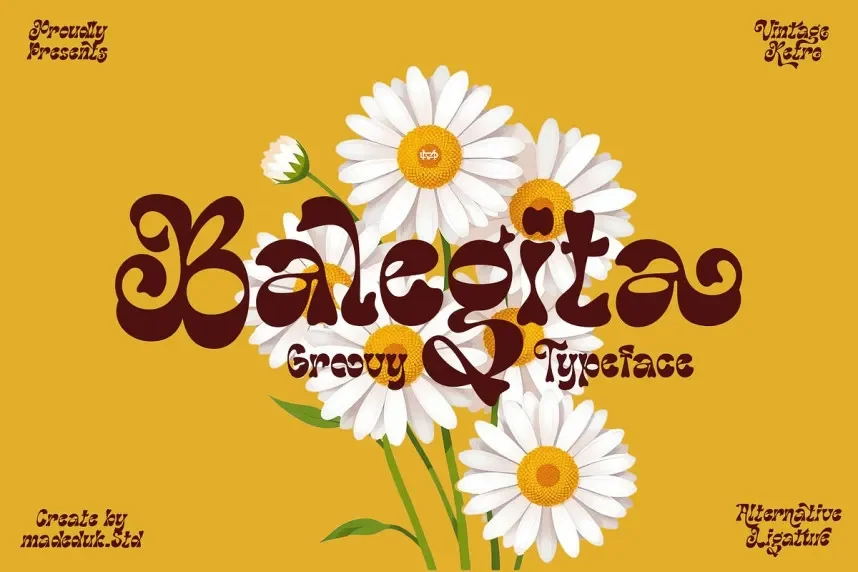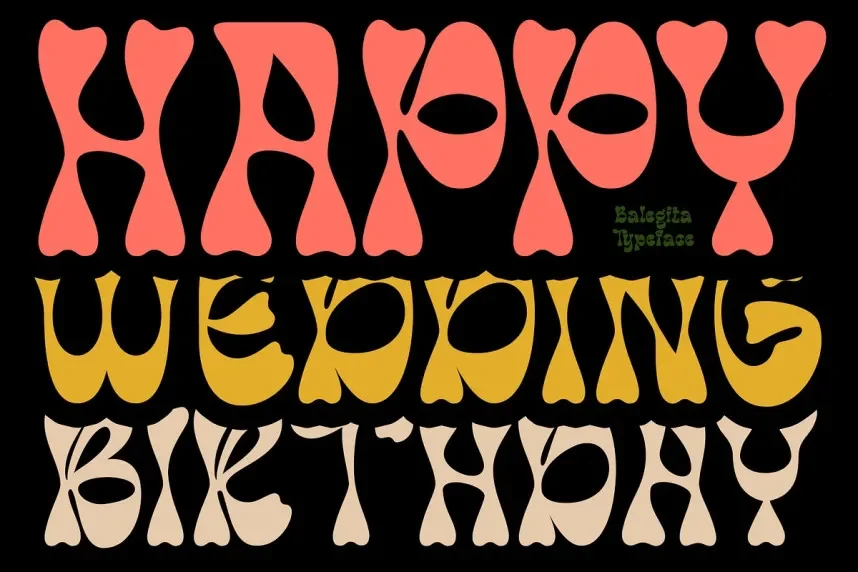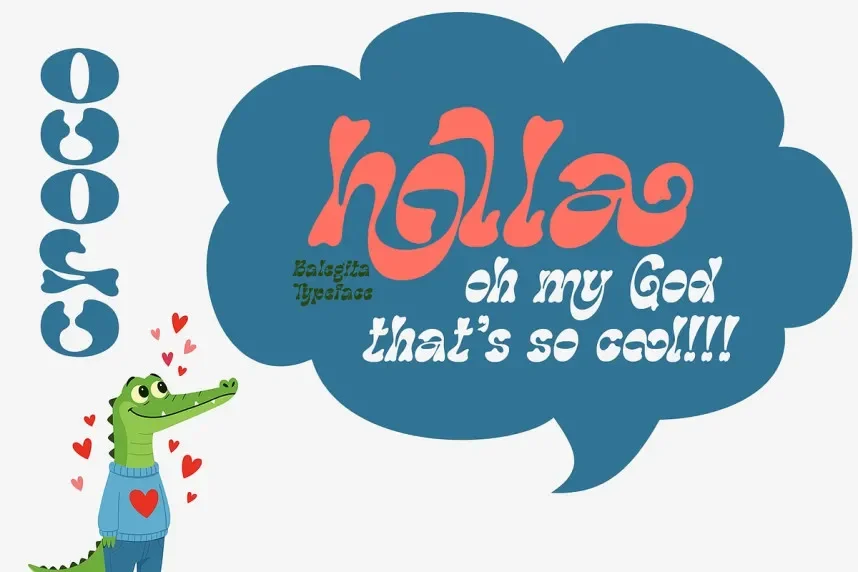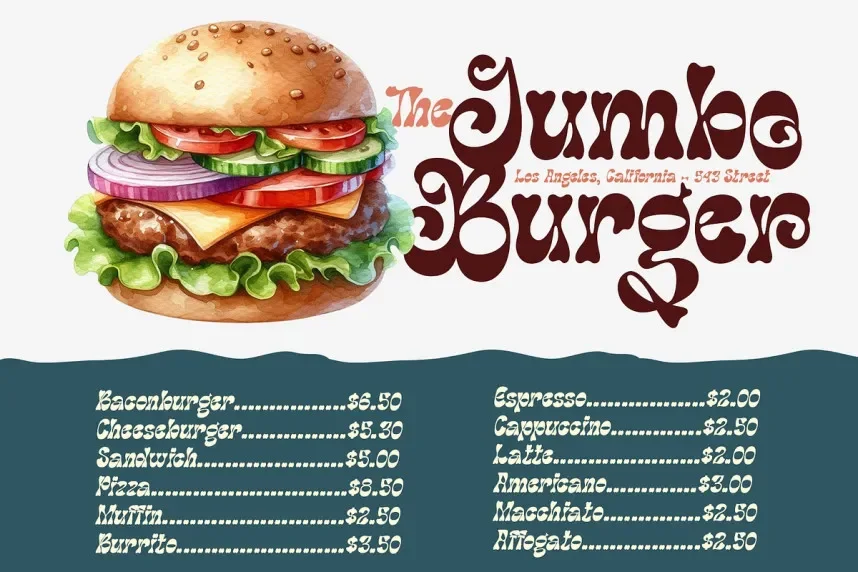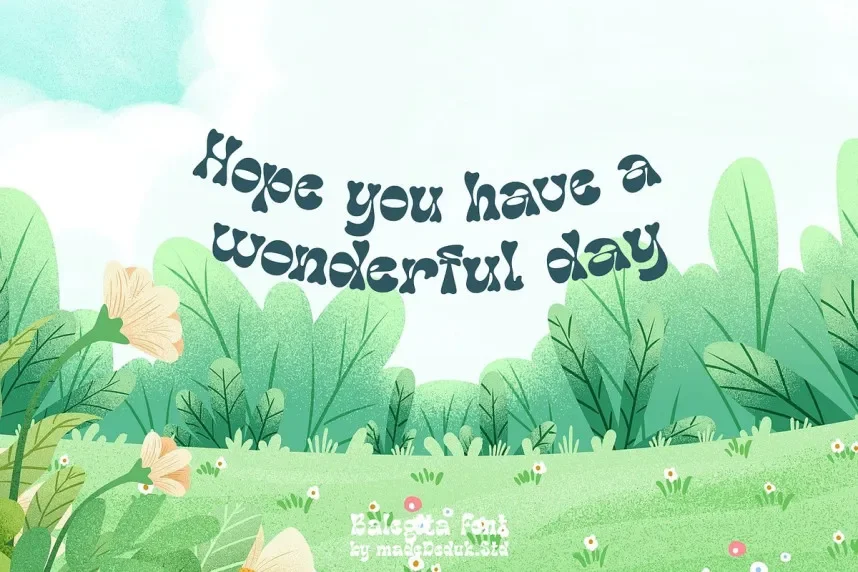
Balegita Groovy Font is a playful, retro-style display typeface with rounded edges and bold, vibrant letterforms. Its cheerful design makes it perfect for projects that need a fun, eye-catching look, such as event posters, branding, and social media graphics.
Best used for logos, posters, and product packaging, Balegita Groovy Font pairs well with minimalist sans-serif fonts for body text. Available in TTF and OTF formats, it comes with a commercial-use license. Always check the license before commercial use.